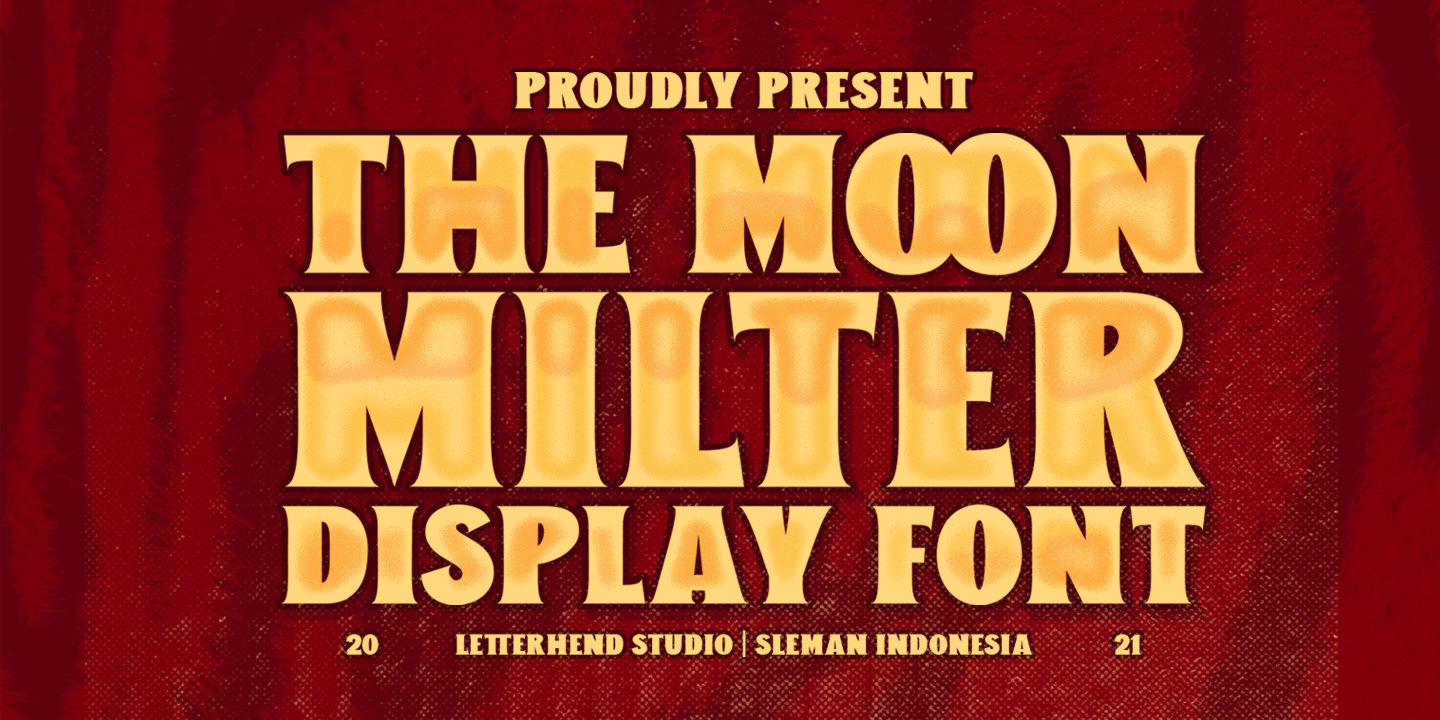
MOON MILTER
Designed by Hendry Juanda, Moon Milter is a display serif font published by Letterhend Studio.
Introducing, The Moon Milter is a vintage sans serif font. Inspired by 50s 60s signages, this font made to bring back the good ol’ days. This type of font perfectly made to be applied especially in logo, headline, signage and the other various formal forms such as invitations, labels, logos, magazines, books, greeting / wedding cards, packaging, fashion, make up, stationery, novels, labels or any type of advertising purpose.